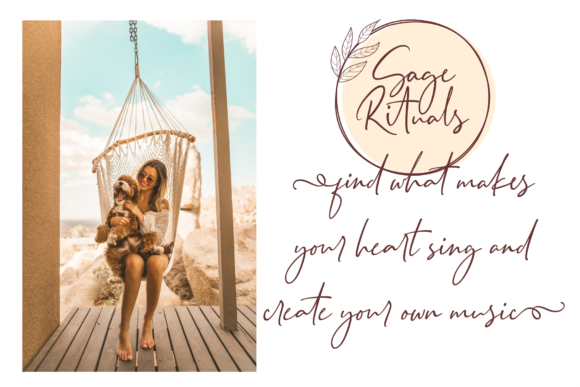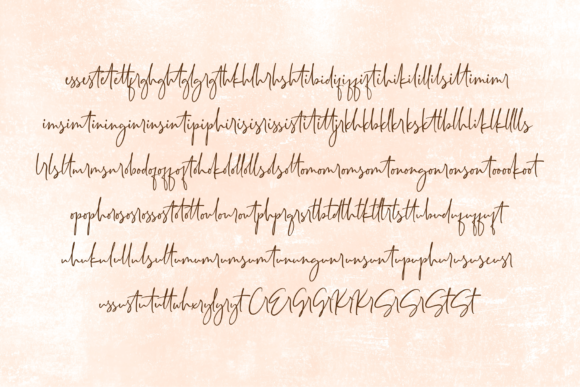
Seville Script Font
db-ku.com - Script & Handwritten -- The Seville is a casual, yet luxury script with a natural free flow. It has a simple but sweet style and comes in four variations. Also included are 40+ exclusive wreath logos!